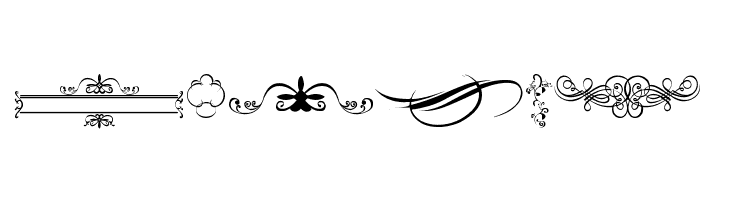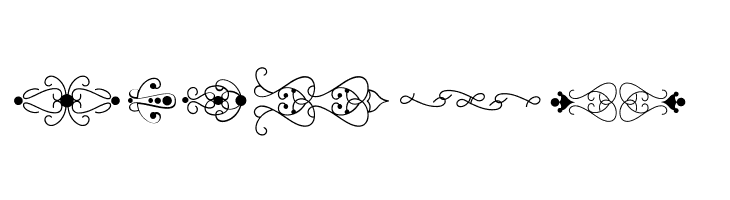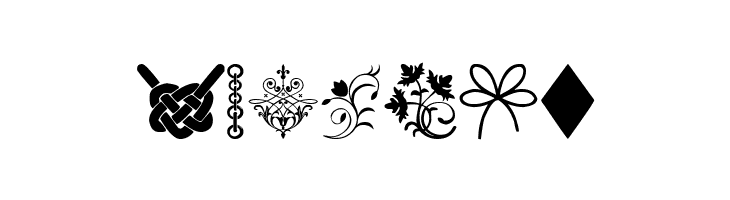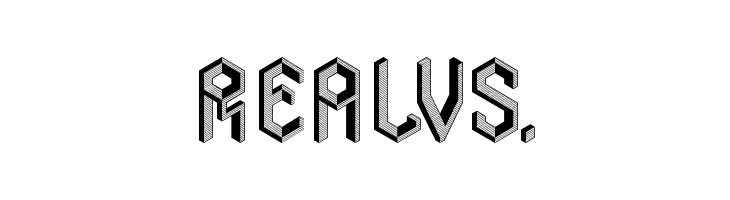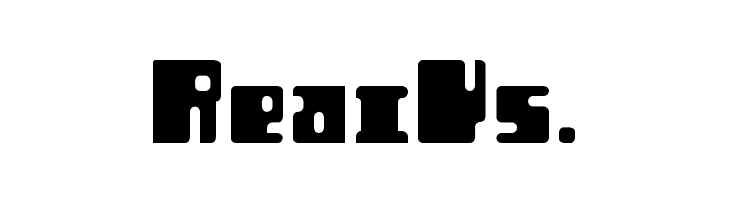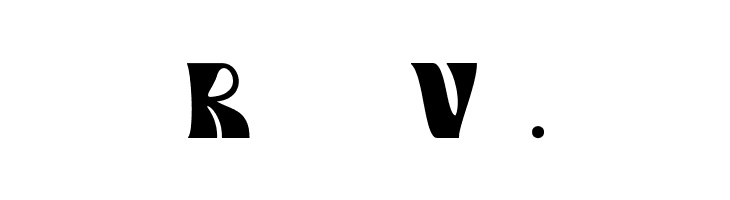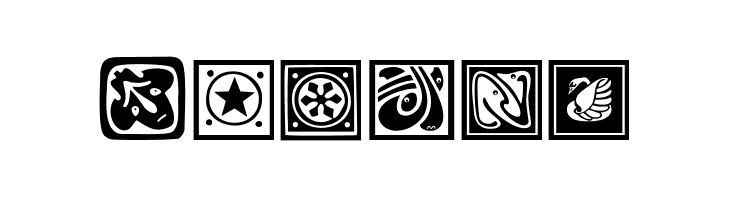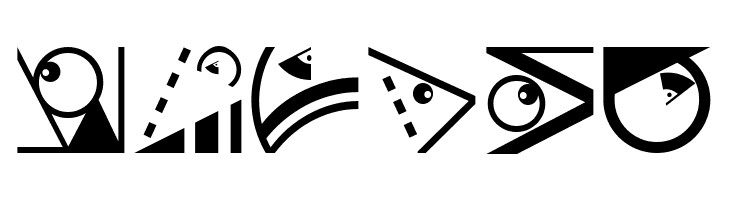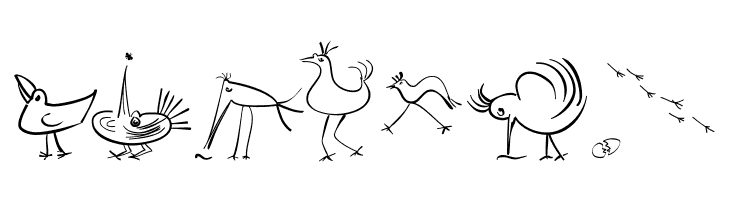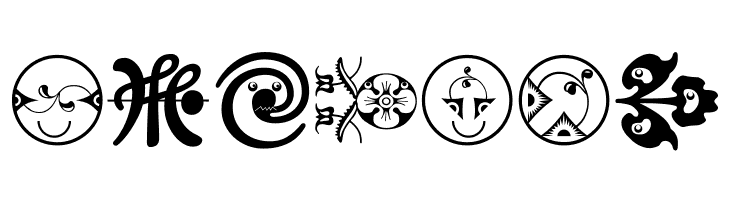
An intricate decorative font with elaborate ornamental designs.
Ornamental and decorative dingbat set with borders and flourishes.
Ornate decorative elements with vintage and classical motifs.
Ornate and vintage-inspired decorative frames and flourishes.
Ornamental and decorative frames and flourishes with vintage styling.
A bold ornamental dingbat collection with floral, geometric, and flourish motifs.
Ornamental flourishes with intricate, vintage-inspired details.
Elaborate ornamental glyphs with flourishes and botanical elements.
An intricate decorative font featuring elegant ornamental designs.
Intricate and elegant ornamental designs with swirling lines and floral motifs.
A playful, hand-drawn style font with rounded edges and consistent stroke width.
Ornamental dingbat font with floral, abstract, and whimsical motifs.
A decorative font with abstract, face-like characters and bold geometric designs.
A whimsical and artistic decorative font featuring abstract, face-like shapes.
Intricate decorative elements with swirls, flourishes, and heart motifs.
Highly decorative ornamental motif font with floral and geometric elements.
A decorative font with intricate ornamental designs in square frames.
An ornate and decorative font with intricate swirls and flourishes.
A collection of decorative ornaments featuring intricate swirls and floral motifs.
A decorative font with intricate patterns and a vintage flair.
A playful, bird-themed font with unique illustrated characters.
A decorative and modern font with bold, patterned uppercase and clean lowercase letters.
An elegant and decorative font with classic, intricate design elements.
A bold, artistic font with high contrast and unique curves.
An elegant script font with flowing, interconnected letters and ornate uppercase characters.
A bold, three-dimensional font with a modern, industrial style.
A bold, geometric font with rounded edges and a modern aesthetic.
A bold, distressed font with an eroded, industrial look.